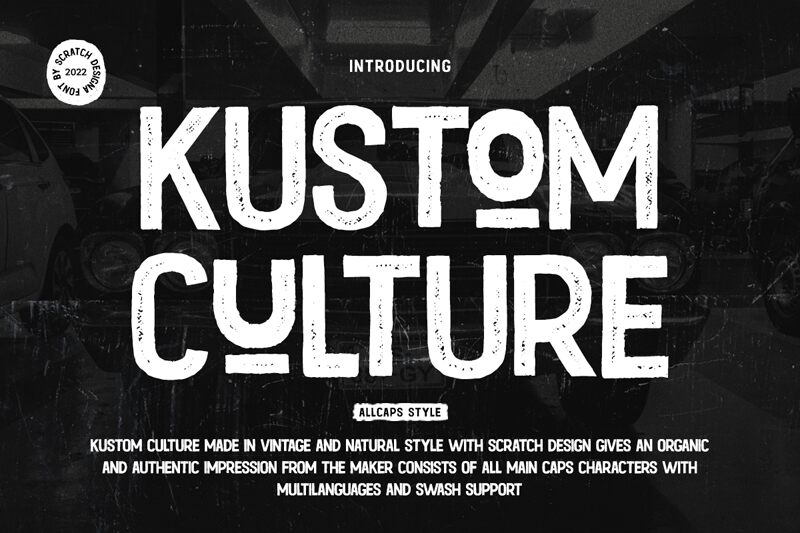
Kustom Culture Regular
Kustom Culture, a distinctive creation by Scratch Design, is a display font that embodies the raw spirit of street art and subcultures. Its eroded style exudes an edgy vibe, perfect for projects that aim to stand out with a touch of rebelliousness. The semi-condensed width of Kustom Culture makes it both impactful and space-efficient, ensuring its presence is felt without overwhelming the canvas.
Crafted with an aesthetic that captures the essence of handcrafted imperfection, this typeface is ideal for designs that require a gritty, authentic feel. Whether it's for band posters, urban fashion labels, or vintage-themed events, Kustom Culture offers a versatile visual language that speaks to those who appreciate a bold statement.
Its textured appearance adds depth to any design and invites viewers into a world where every imperfection tells a story. Kustom Culture isn't just another font; it's an artistic tool that can transform words into visually striking messages with character and attitude.